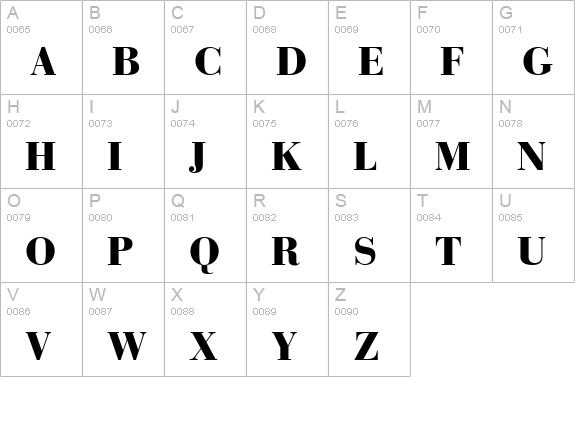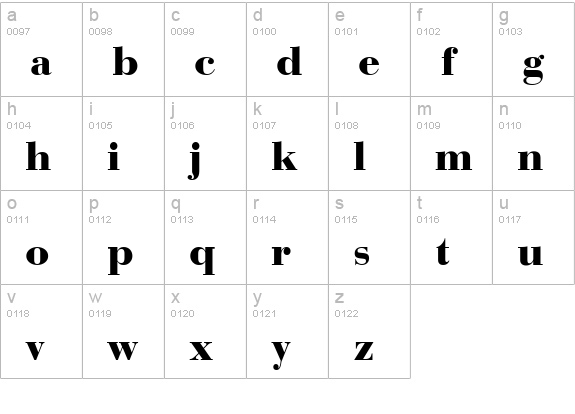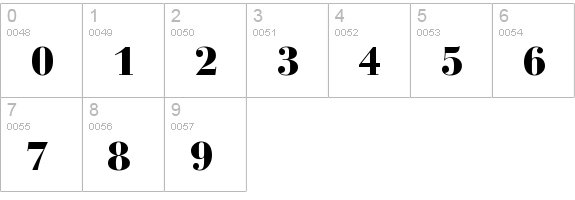
Bodoni Recut Black SSi Black is a maximum-weight, dramatic variant in the Bodoni typeface family \xE2\x80\x94 well suited to maximum-impact headlines, posters, and packaging.
Bodoni Recut Black SSi Black font is a bold and striking typeface that exudes elegance and sophistication. Its sharp serifs and clean lines make it perfect for creating impactful headlines and titles. The font commands attention with its strong presence and timeless appeal. The best part is that Bodoni Recut Black SSi Black font is available for free download at FontsMarket.com. This means you can easily add this stunning font to your design arsenal without any cost. Whether you're working on a print project, a website design, or any other creative endeavor, this font will elevate your work and make a lasting impression. Don't miss out on the opportunity to enhance your designs with this beautiful typeface - download Bodoni Recut Black SSi Black font today!